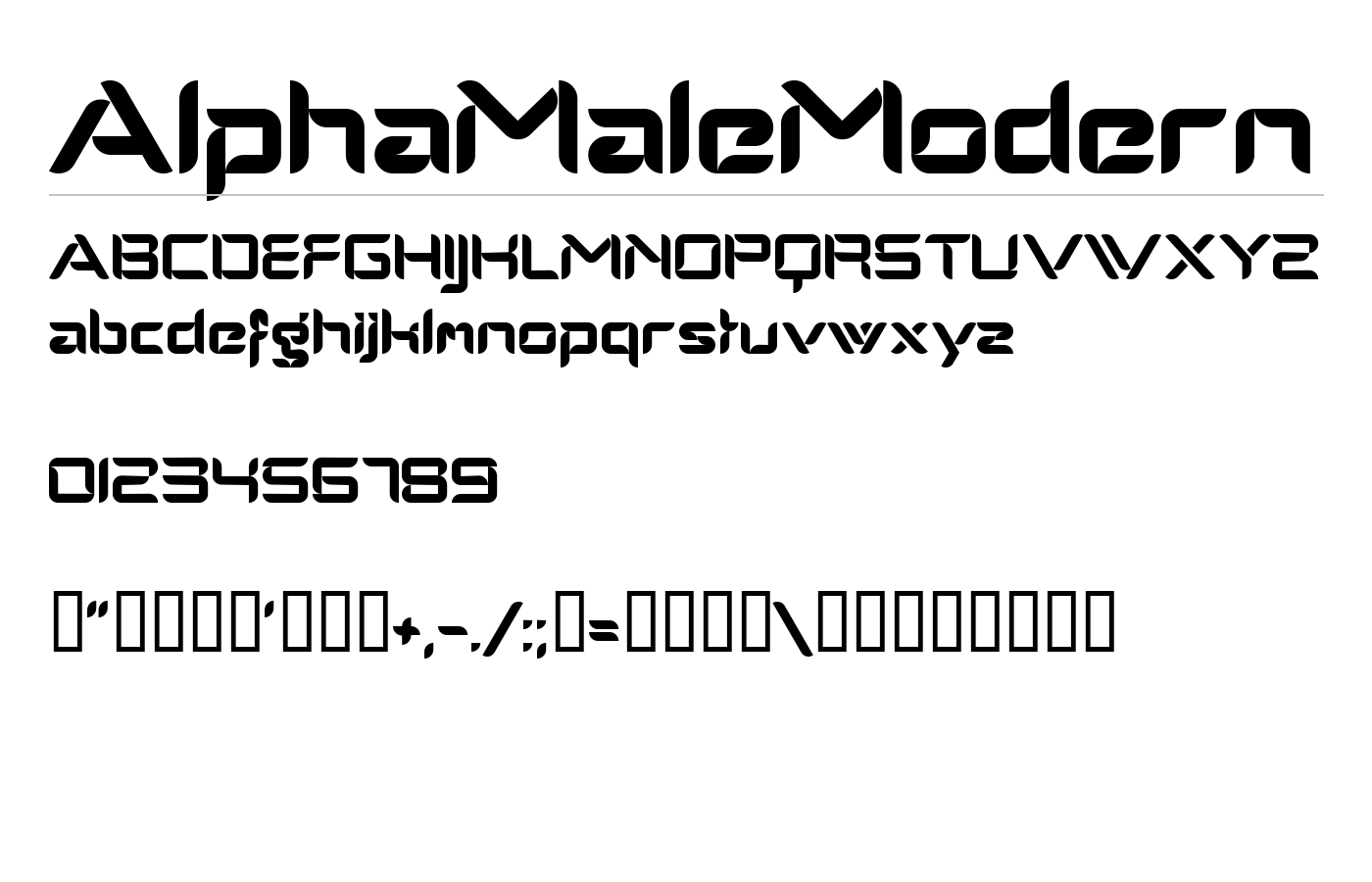
AlphaMaleModern is a bold, futuristic sans serif font with a strong geometric structure and sharp, angular cutouts that give it a tech-inspired, modern feel. Its clean lines and distinctive letterforms make it ideal for eye-catching headlines, branding, and logos that seek a dynamic and contemporary edge. This font works especially well for projects related to technology, gaming, and cutting-edge design where a confident, innovative character is desired.
AlphaMaleModern Font